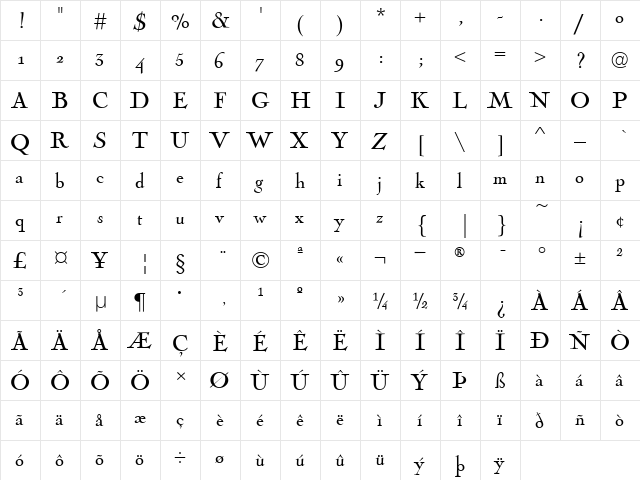
Nicolas Cochin EF Regular Font Preview
Nicolas Cochin EF Regular
Nicolas Cochin EF Regular Font Details
Design Context for Nicolas Cochin EF Typeface
Nicolas Cochin EF is a composed and adaptable typeface that performs quietly and consistently across a wide range of design contexts.